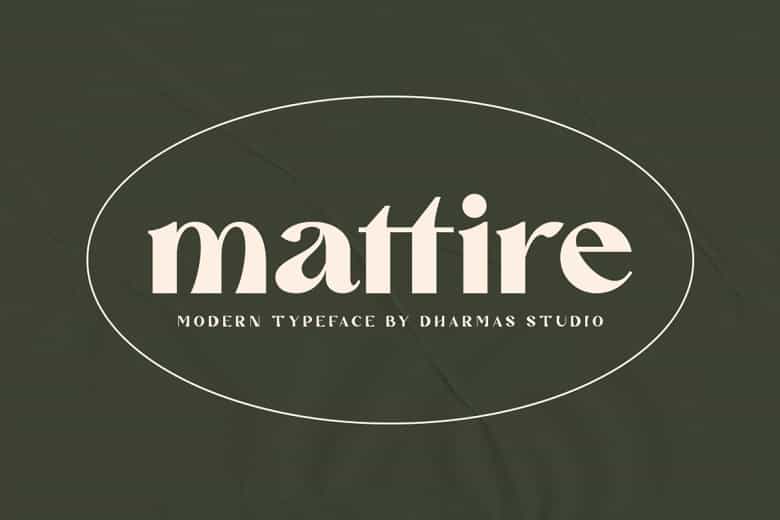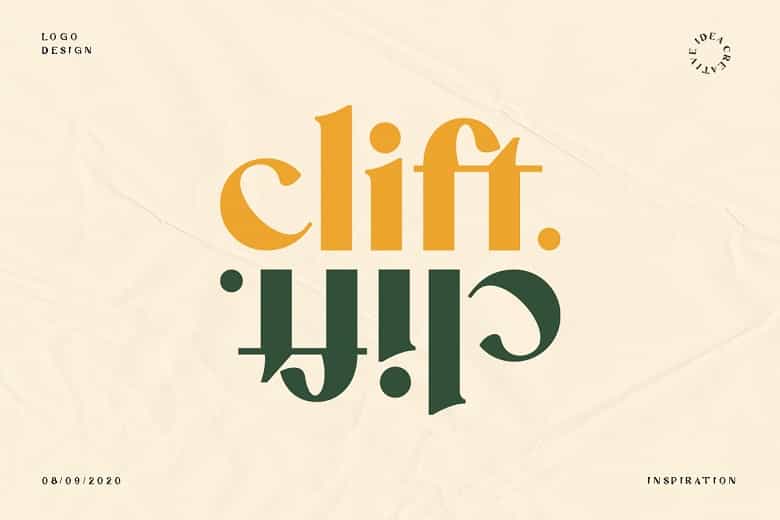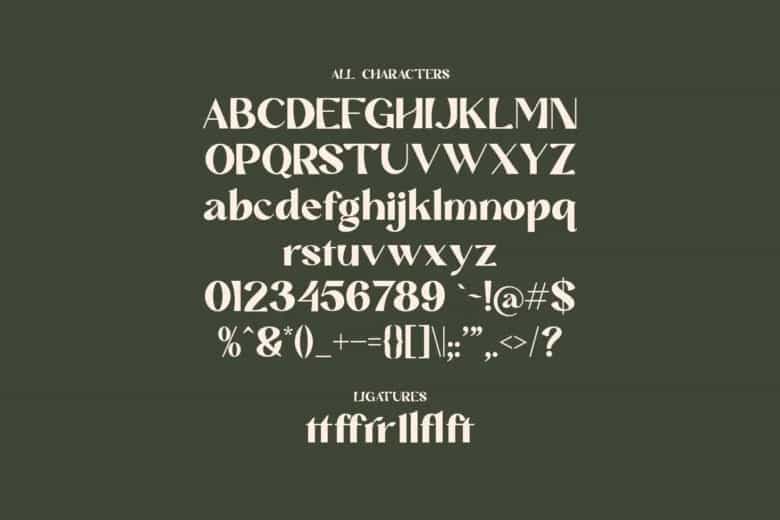
Mattire can be classified as a display font, rather simple and elegant in its design. A strong, black and white font that suits header magazine, web, feminine logo marks & editorial design best. It is a combination of old style and futuristic font type where the serif style is turned into sans serif.